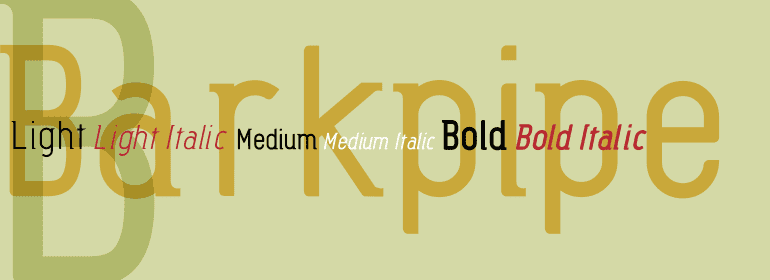
Barkpipe Family (6 fonts)
From Australian Type Foundry
This face has a stiff machine-like quality which derives from it’s ambiguous position between semi-serif, slab-serif and display. Barkpipe can't quite make up it’s mind what category it wants to reside in.